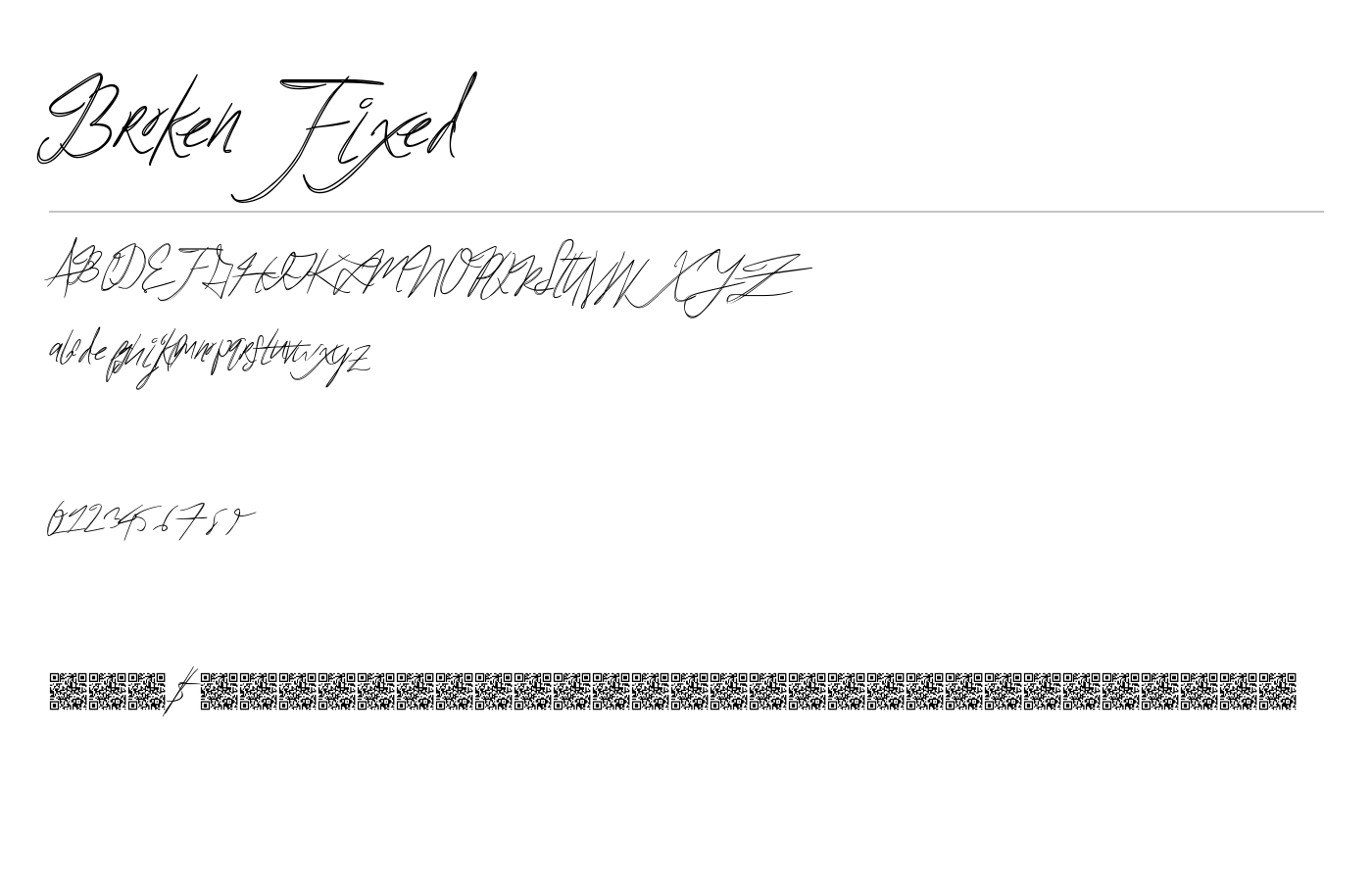
BrokenFixed is an expressive handwritten script font with a delicate, intricate style that mimics quick, flowing pen strokes. Its light weight and high contrast create an elegant yet somewhat chaotic feel, making it ideal for artistic, personal, or editorial designs that seek a unique, creative touch. This font works best in decorative headlines or creative projects where a sophisticated, hand-crafted look is desired.
BrokenFixed Font